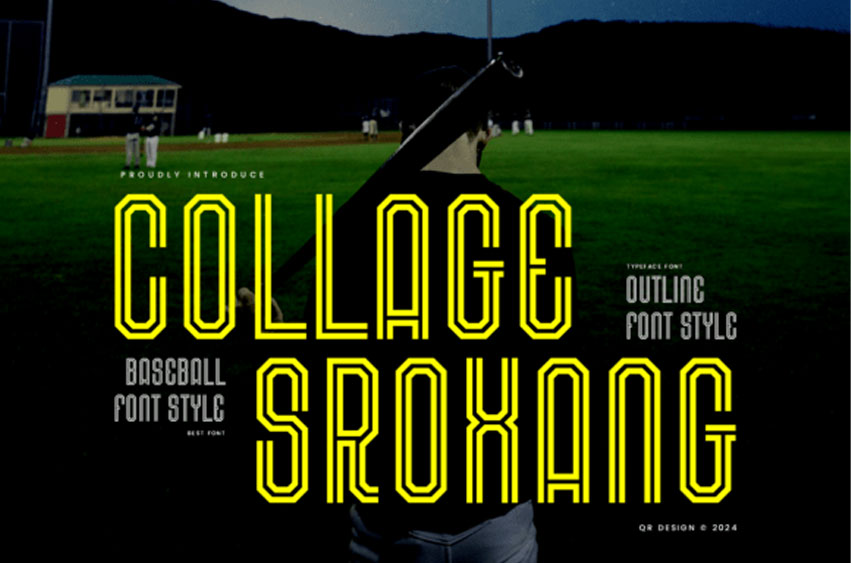
Collage Sroxang Font
Collage Sroxang Font is a bold and authentic display font. The font is suitable for any branding project, like logos, sports, and many more.
Outstanding in a wide range of contexts.